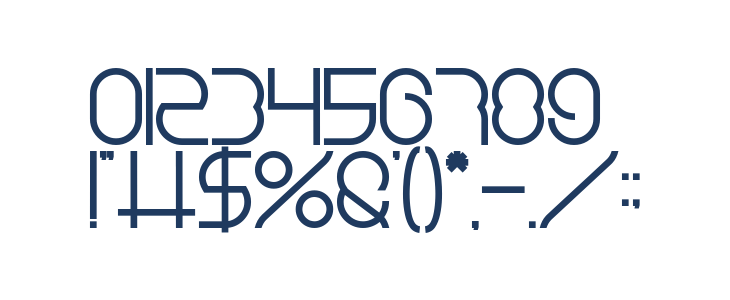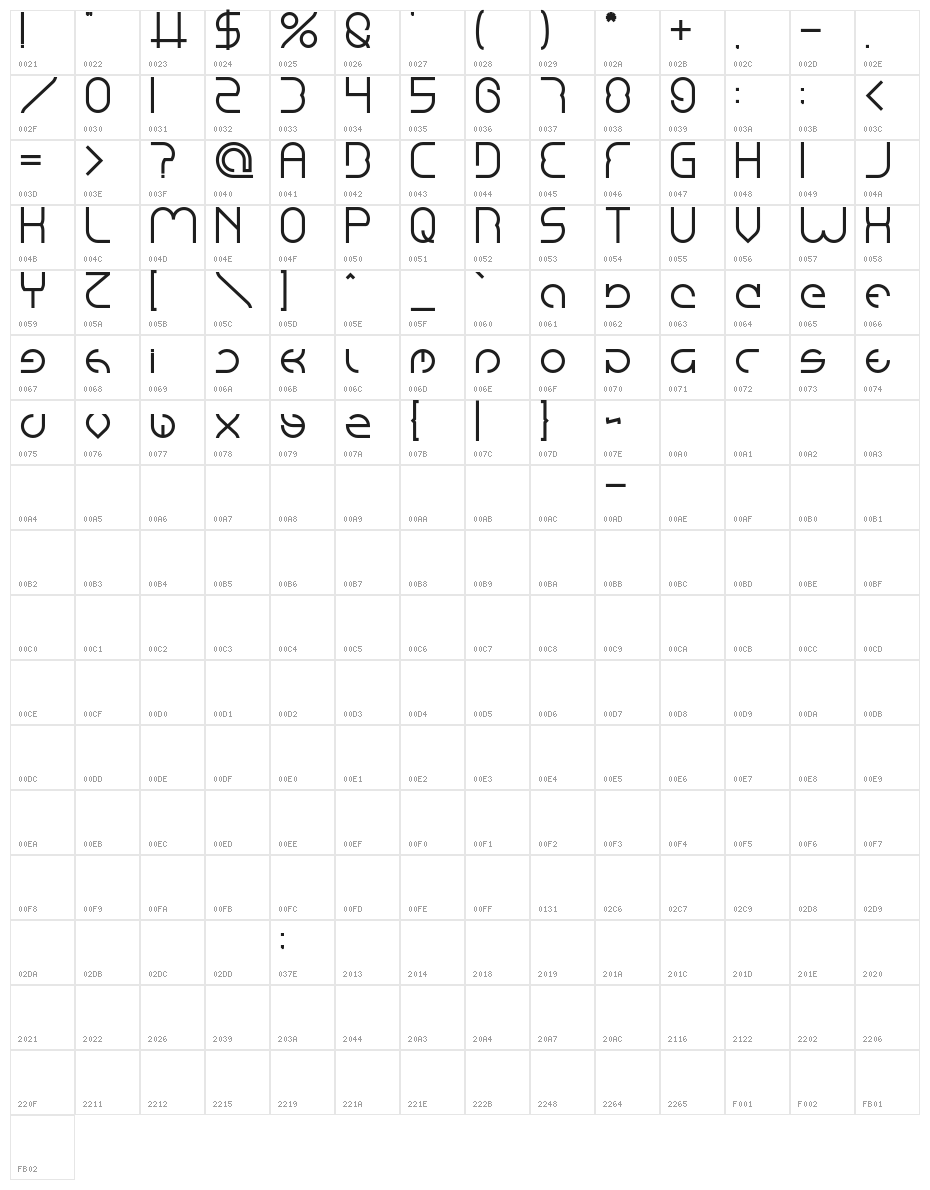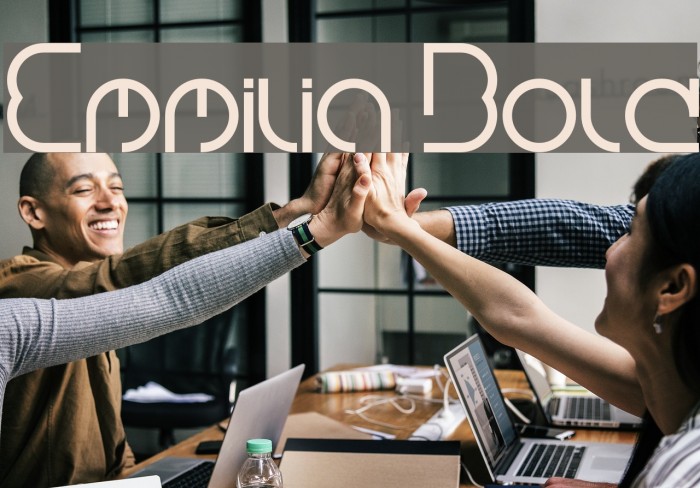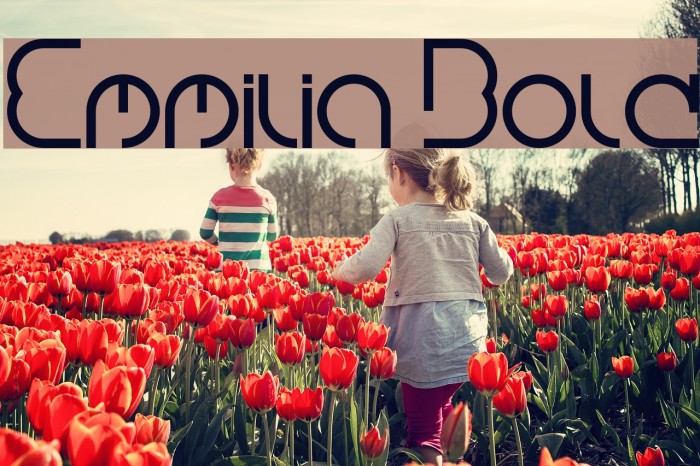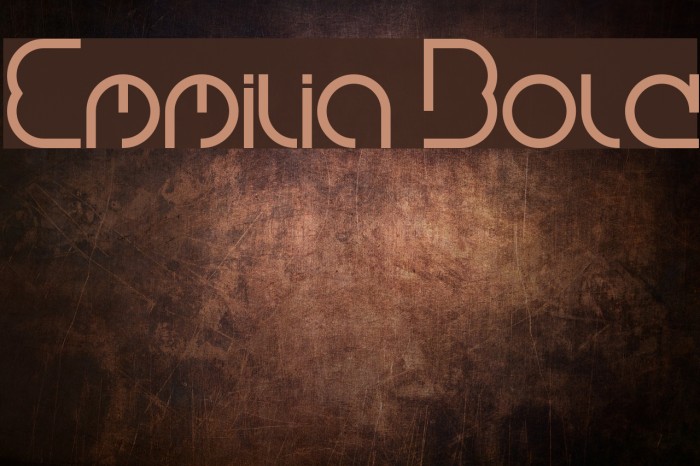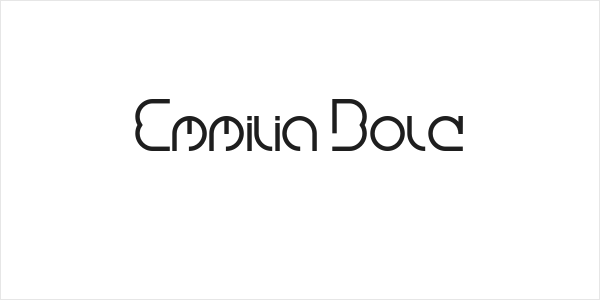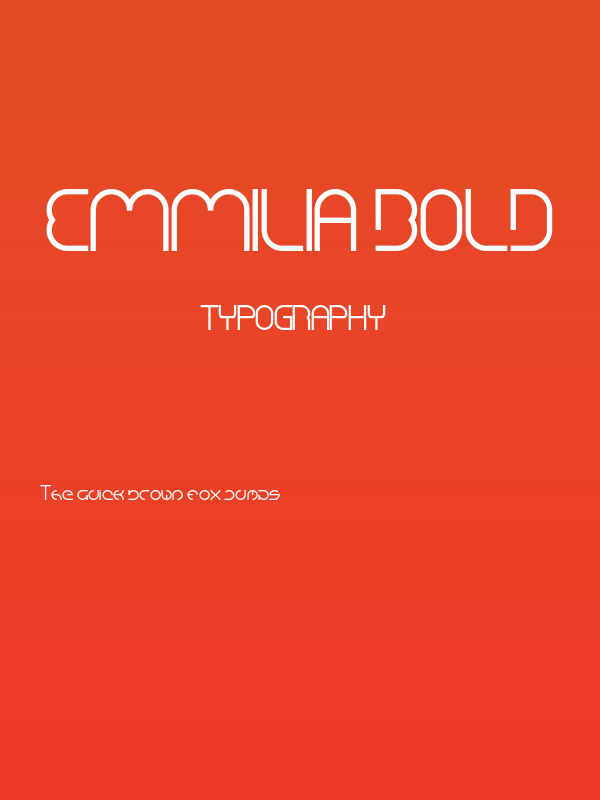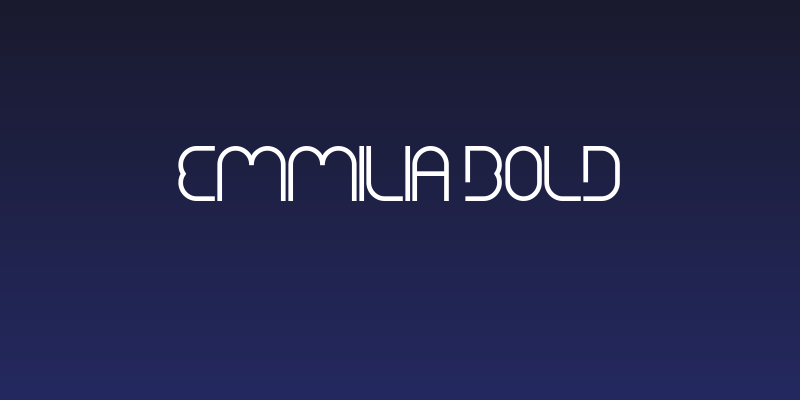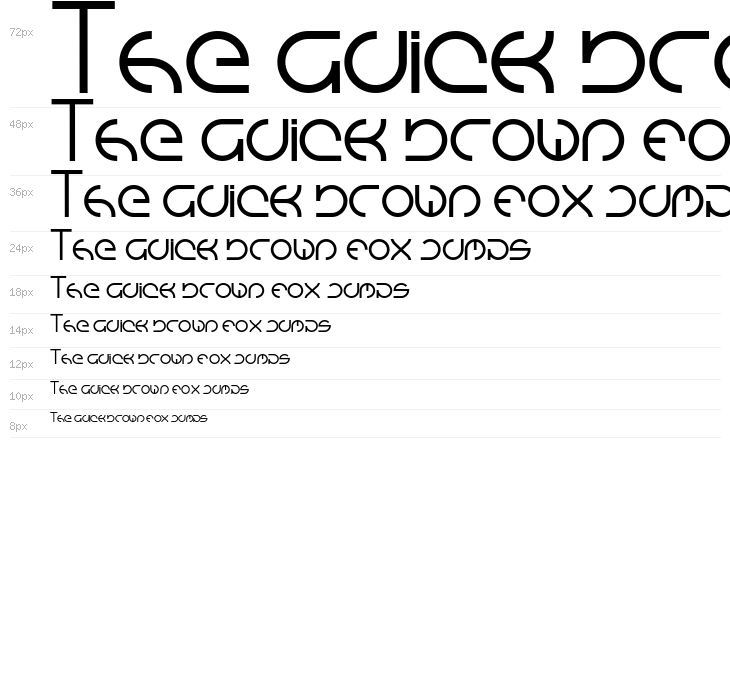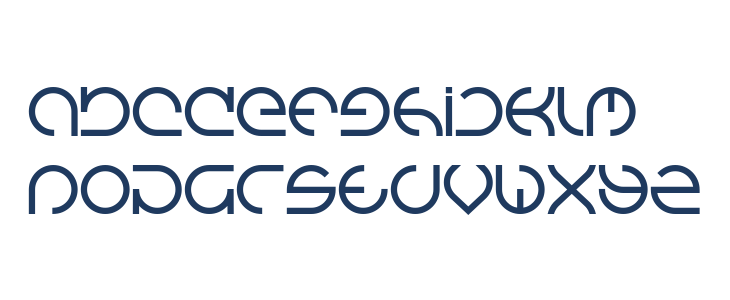
Emmilia Bold Font
Emmilia Bold Description
This font features a modern and geometric design with clean, straight lines and rounded edges. The characters are constructed with a consistent stroke width, giving it a uniform appearance. The uppercase letters are bold and striking, while the lowercase letters maintain a similar style but with a slightly more compact form. The numerals and special characters follow the same geometric theme, making the font suitable for a variety of applications. Its futuristic look is enhanced by the minimalistic design, which avoids unnecessary embellishments, focusing instead on clarity and readability.
| Proposed Projects | Ideal for tech branding, modern advertising, futuristic posters, and digital interfaces. |